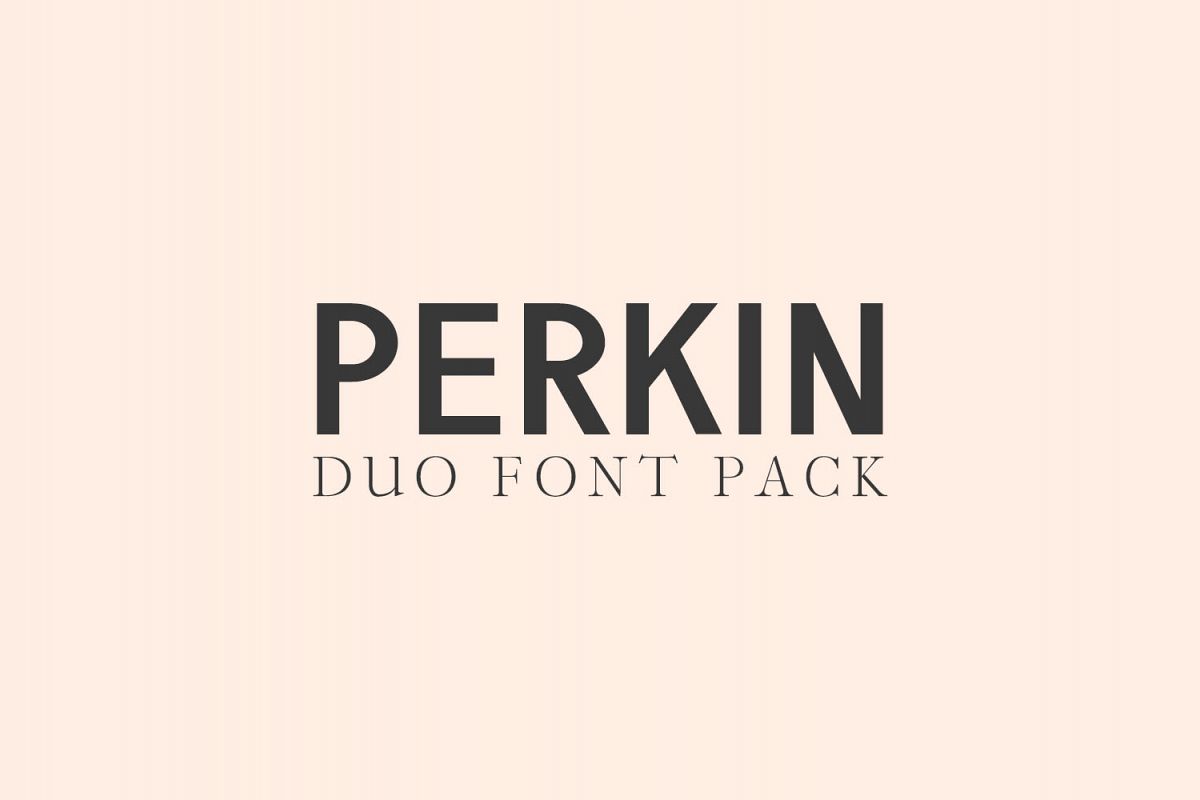
Perkin | Duo Font + Bonus Logo
Perkin Duo Font is a bold sans serif + serif font duo with both solid and outlined font files. These fonts looks amazing in all caps with a wide-set spacing if you want to try a classy look, or beautiful on its own in capital and lowercase letters for something completely timeless. Perfect for gorgeous logos, displays, headers, invitations, save the dates, weddings, titles, web layouts and branding, etc.
• Font Weight: Perkin Sans Serif: Regular, Outline + Xylon Serif: Regular
Perkin Duo Font Features:
• Uppercase Multilingual Letters
• Lowercase Multilingual Letters
• Alternative